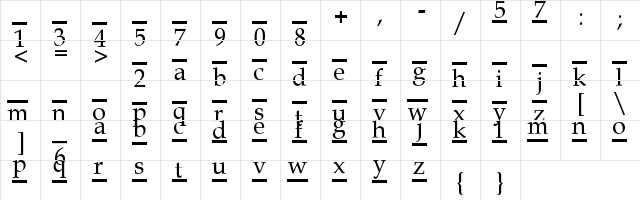
Ratio2 Bold
Design Context for Ratio2 Typeface
Ratio2 is a composed and adaptable typeface that performs quietly and consistently across a wide range of design contexts. Its bold stroke weight gives it real presence on the page.
Pro Tip: Use Ratio2 in both headline and body roles to test its range before committing to a single application.